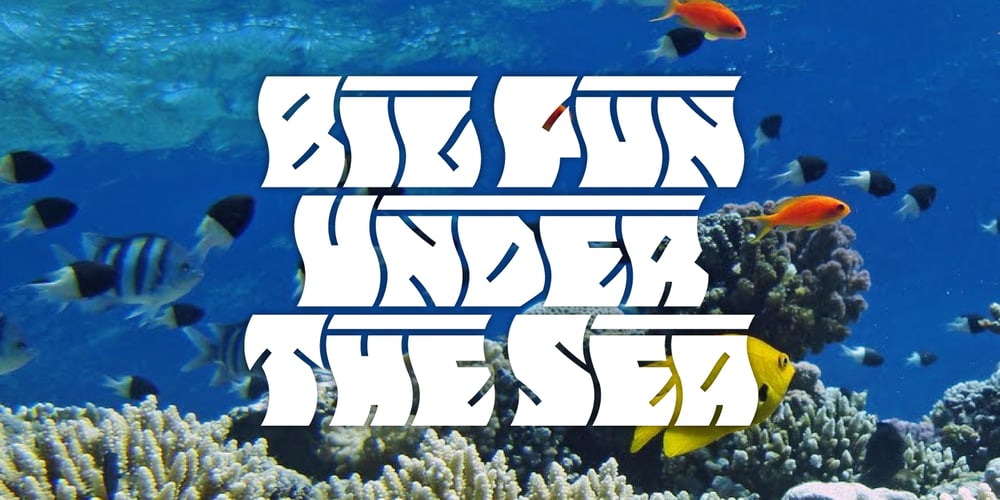
Onda
Onda font
Onda Font Family was designed by John Moore and published by John Moore Type Foundry. Onda contains 1 styles and family package options. Onda is a display typeface based on a synthesis of curvilinear nostalgic spirit leads us to a new psychedelia words are immersed in the spirit of the 60s. Onda is provided “style forms” to small caps, in both its Regular and Italic. Its use is recommended for bands, pop spirit signs, markings or titles for scuba diving, oceanography and water industry.